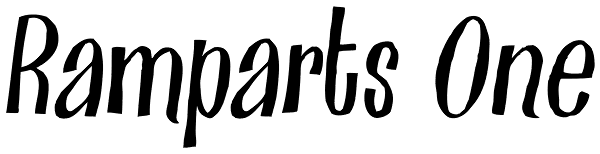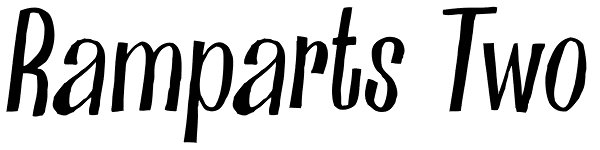
Ramparts
…o’er the ramparts we watched, were so gallantly streaming… How many times have you sung this refrain only to wonder, “What the hell are RAMPARTS?” Accessories for a ‘73 Dodge pickup? Mutton from a 4-legged critter? No sir! They’re 2 fun and funky...
Ramparts One
Ramparts Two